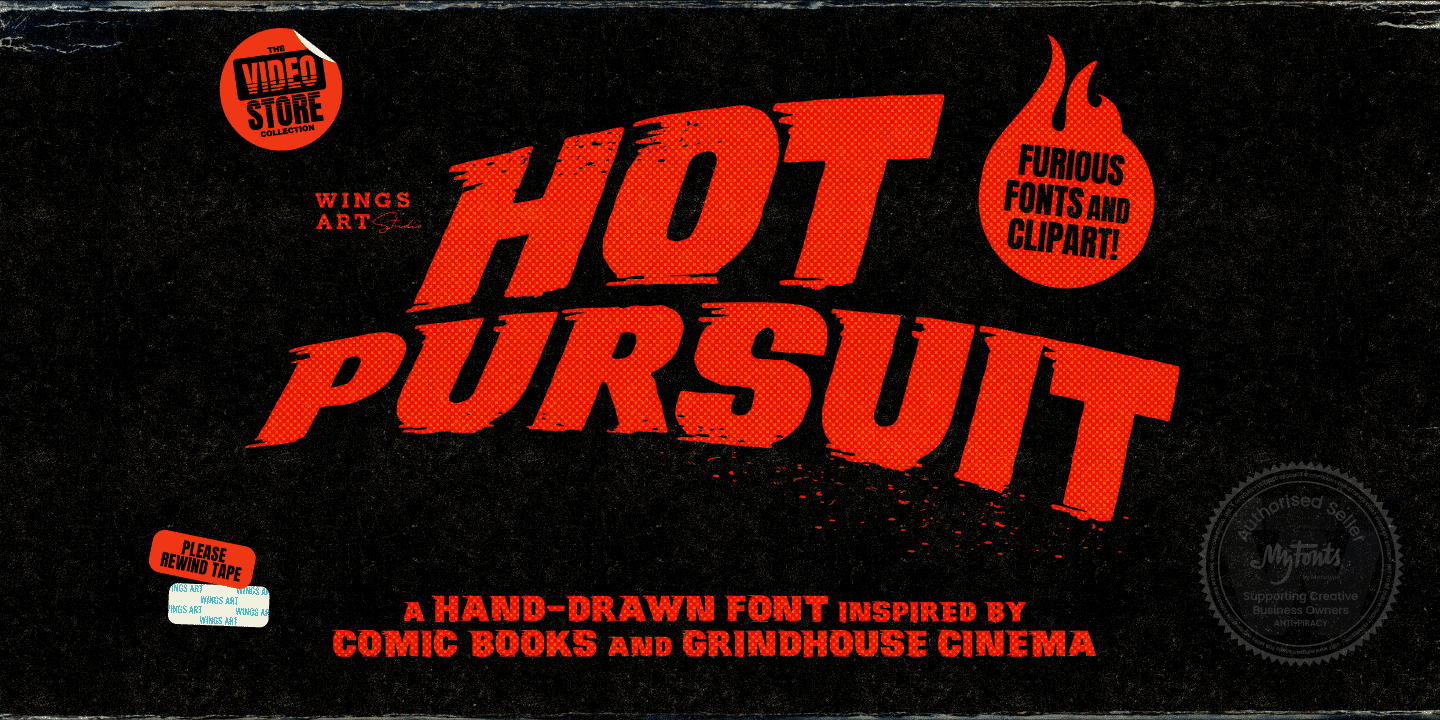
The Hot Pursuit Font is incredibly versatile, making it a dynamic choice for a wide array of design projects that aim to convey a sense of speed, excitement, and modern urgency. Imagine it bringing a bold, adrenaline-fueled energy to sports branding and athletic apparel, making action movie posters pop with thrilling dynamism, or adding a sleek, high-octane feel to advertising for performance vehicles and gaming. It's also fantastic for crafting expressive event flyers for races and competitions, unique signage for adventurous businesses, and impactful social media graphics that demand attention with their vibrant energy. Its inherent strength and forward-leaning character make it perfect for any project striving to communicate power, motion, and an unmissable visual message.
What makes Hot Pursuit Font so exciting is its unique ability to combine a sense of rapid movement with robust and clear letterforms. It often features slanted or aerodynamic shapes, strong baselines, and a bold presence that gives it an immediate sense of urgency and dynamic action. This font doesn't just display text; it accelerates, making your message feel energetic, thrilling, and deeply impactful. Its balance of raw visual strength and functional clarity ensures that your designs are not only eye-catching but also effectively convey their intended message. It's a typeface that brings an atmosphere of intense excitement and cutting-edge drive to your typography, guaranteeing your projects leave a bold and memorable impression.
The Hot Pursuit Font family typically includes a variety of weights and stylistic options to provide extensive creative flexibility. While specific options can differ, you can generally expect to find alternatives like Regular, Bold, and potentially an Italic or a speed-line textured version that enhances its dynamic appeal. These different weights and stylistic sets allow you to create dynamic visual hierarchies and add nuanced artistic flair to your typography, ensuring a cohesive and compelling design. This comprehensive family support ensures that whether you need a strong, impactful headline or a subtle, genuine accent, Hot Pursuit Font Free Download offers the perfect elements to bring your high-speed vision to life.